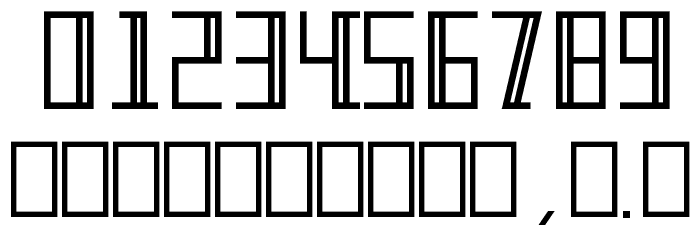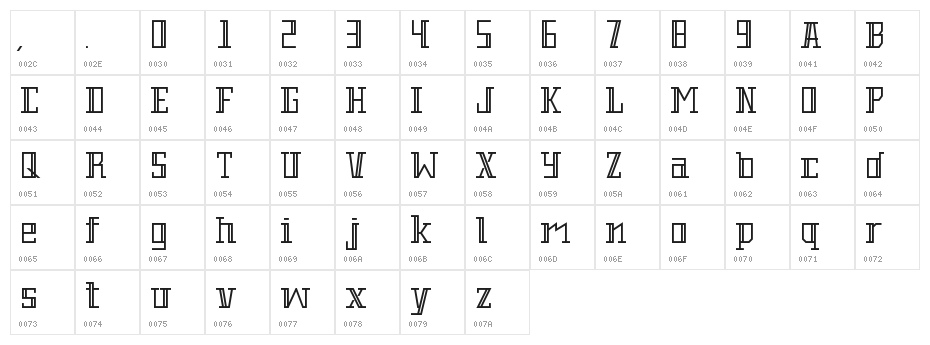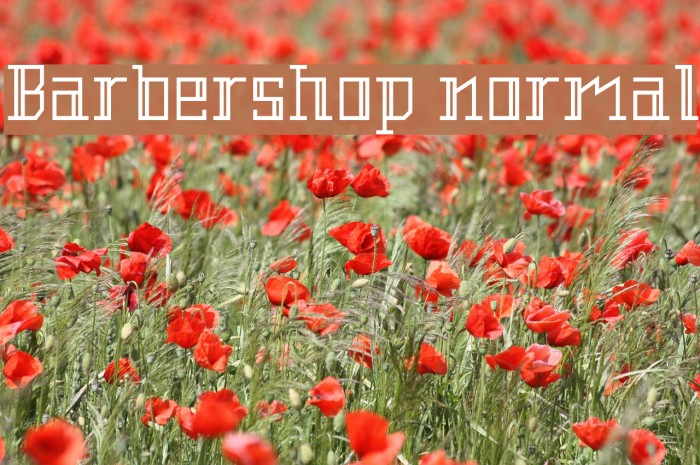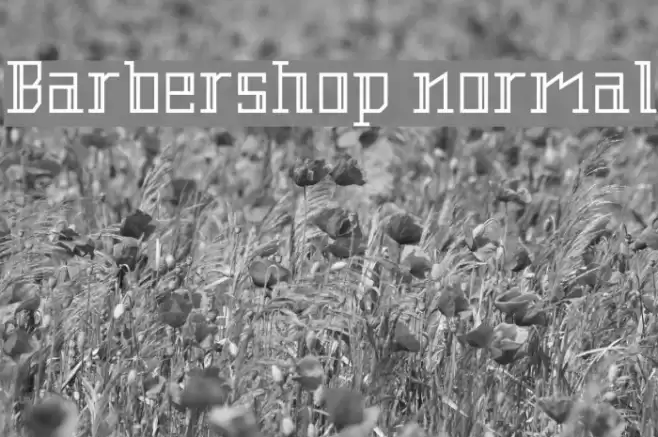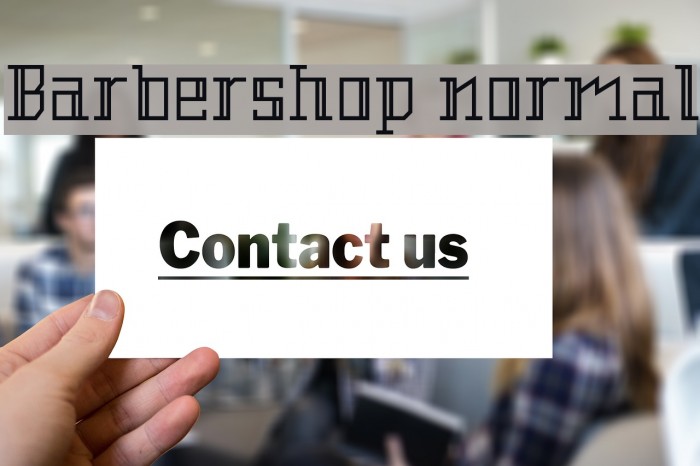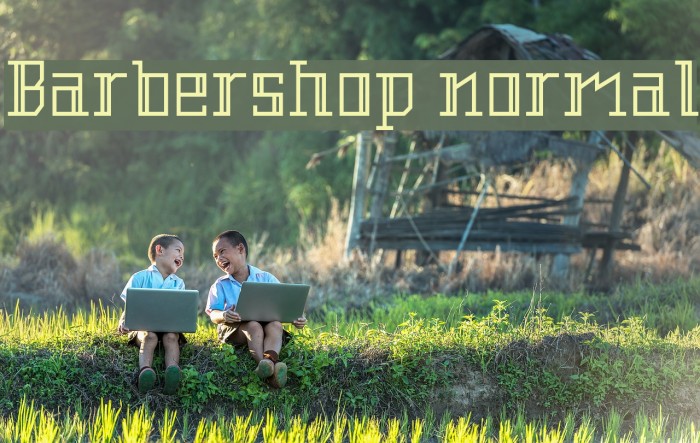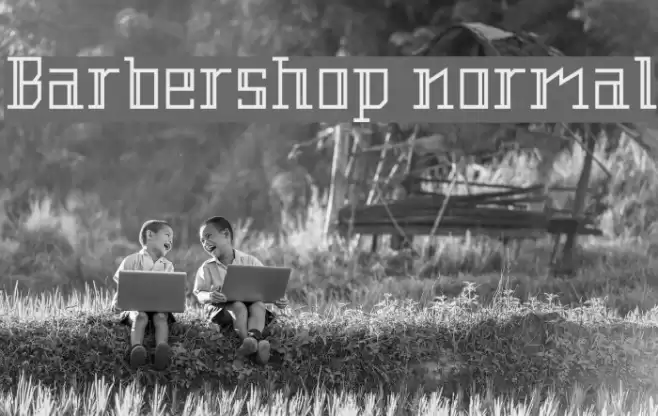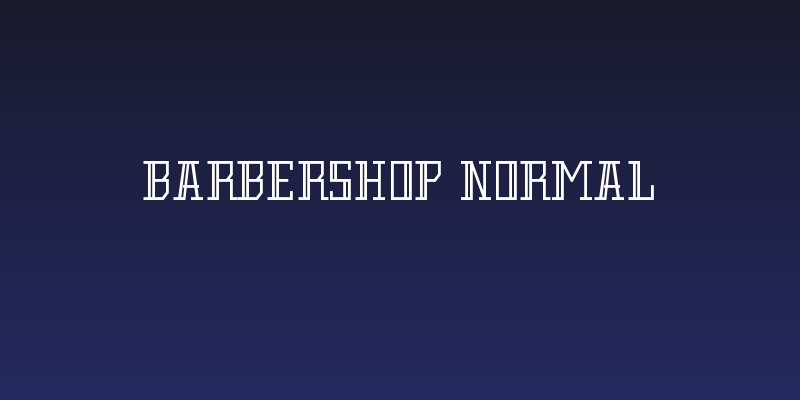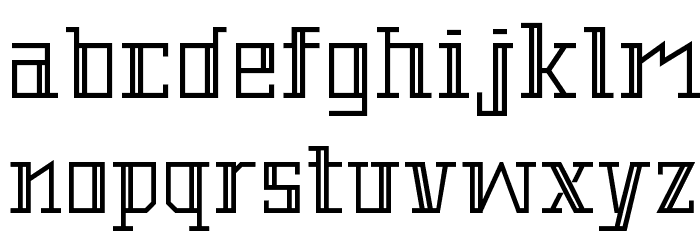
Barbershop normal Font
Barbershop normal Description
This font features a unique, geometric design with a modern twist. The characters are constructed with clean, straight lines and sharp angles, giving it a structured and architectural feel. The uppercase letters are bold and commanding, while the lowercase letters maintain the same geometric style with a slightly more compact form. The numerals are consistent with the overall design, offering a cohesive look across all characters. Special characters like $?&%!#*= are integrated seamlessly, maintaining the font's distinct style. This font's design is both eye-catching and versatile, making it suitable for a variety of creative projects.
| Proposed Projects | Ideal for branding, posters, signage, and editorial design where a modern and structured look is desired. |